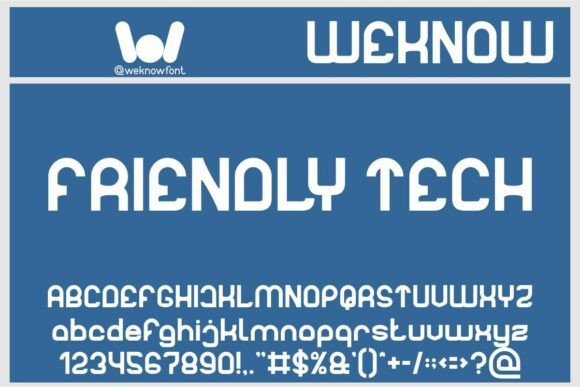
Introducing Friendly Tech Font: The Ultimate Typeface for Futuristic Designs
In the realm of typography, a new era of innovation has dawned with the emergence of Friendly Tech, an avant-garde sans-serif display typeface. This cutting-edge font is designed to revolutionize the visual language of brands, infusing them with a retro-futuristic aesthetic that is both nostalgic and ultramodern. With its unique blend of rounded, techno-geometric designs, Friendly Tech is poised to redefine the world of logos, logotypes, and corporate identity.
The Genesis of Friendly Tech
Friendly Tech font is rooted in the space-age aesthetics of the past, yet it has been meticulously crafted to meet the demands of modern design. This modular font is a synergistic blend of retro-futurism and cutting-edge technology, resulting in a visual language that is both nostalgic and forward-thinking. The brainchild of innovative typographers, Friendly Tech is a testament to the evolving nature of design and the ever-changing landscape of technology.
Key Features of Friendly Tech
- Retro-Futuristic Aesthetic: Friendly Tech’s design is inspired by the futuristic visions of the past, with a unique twist that makes it relevant to modern design.
- Rounded, Techno-Geometric Designs: The font’s rounded edges and geometric shapes lend it a friendly, approachable feel that is perfect for brands looking to establish a connection with their audience.
- Modular Design: Friendly Tech’s modular design makes it versatile and adaptable, suitable for a wide range of applications, from logos and logotypes to headlines and corporate identity.
- Ultramodern Visual Language: This font is designed to give brands an edge in the competitive world of design, with a visual language that is both modern and forward-thinking.
Applications of Friendly Tech
Friendly Tech’s cutting-edge appeal makes it a striking choice for a variety of industries, including:
- Apparel: Use Friendly Tech to create bold, eye-catching logos and branding that will set your fashion brand apart.
- Music: Give your music brand a futuristic edge with Friendly Tech’s unique typography.
- Movies: Create captivating titles and logotypes with Friendly Tech’s cinematic feel.
- Gaming: Use Friendly Tech to develop a strong visual identity for your gaming brand, perfect for logos, titles, and in-game text.
Beyond Industries: Friendly Tech in Digital Platforms
Friendly Tech’s contemporary flair makes it an excellent choice for digital platforms, including:
- YouTube: Use Friendly Tech to create attention-grabbing titles and thumbnails for your YouTube videos.
- Instagram: Give your Instagram feed a futuristic makeover with Friendly Tech’s stylish typography.
- Websites: Use Friendly Tech to create a strong visual identity for your website, perfect for headings, titles, and logotypes.
- Magazines and Books: Friendly Tech’s unique design makes it suitable for magazine and book titles, adding a touch of futurism to your publication.
- Cartoons: Create engaging and futuristic titles for your cartoons and animations with Friendly Tech.
Crafting a Style Statement with Friendly Tech
Friendly Tech is more than just a font – it’s a style statement for your cutting-edge design projects. With its meticulous craftsmanship and attention to detail, this font is designed to assist a wide range of creative endeavors. Whether you’re a designer, artist, or entrepreneur, Friendly Tech provides the perfect tool to express your unique vision and style.
In conclusion, Friendly Tech font is a game-changer in the world of typography, offering a unique blend of retro-futurism and cutting-edge technology. Its versatility, adaptability, and striking design make it an excellent choice for brands, designers, and artists looking to make a statement. With Friendly Tech, you can redefine your visual language, establish a strong brand identity, and take your design projects to the next level.